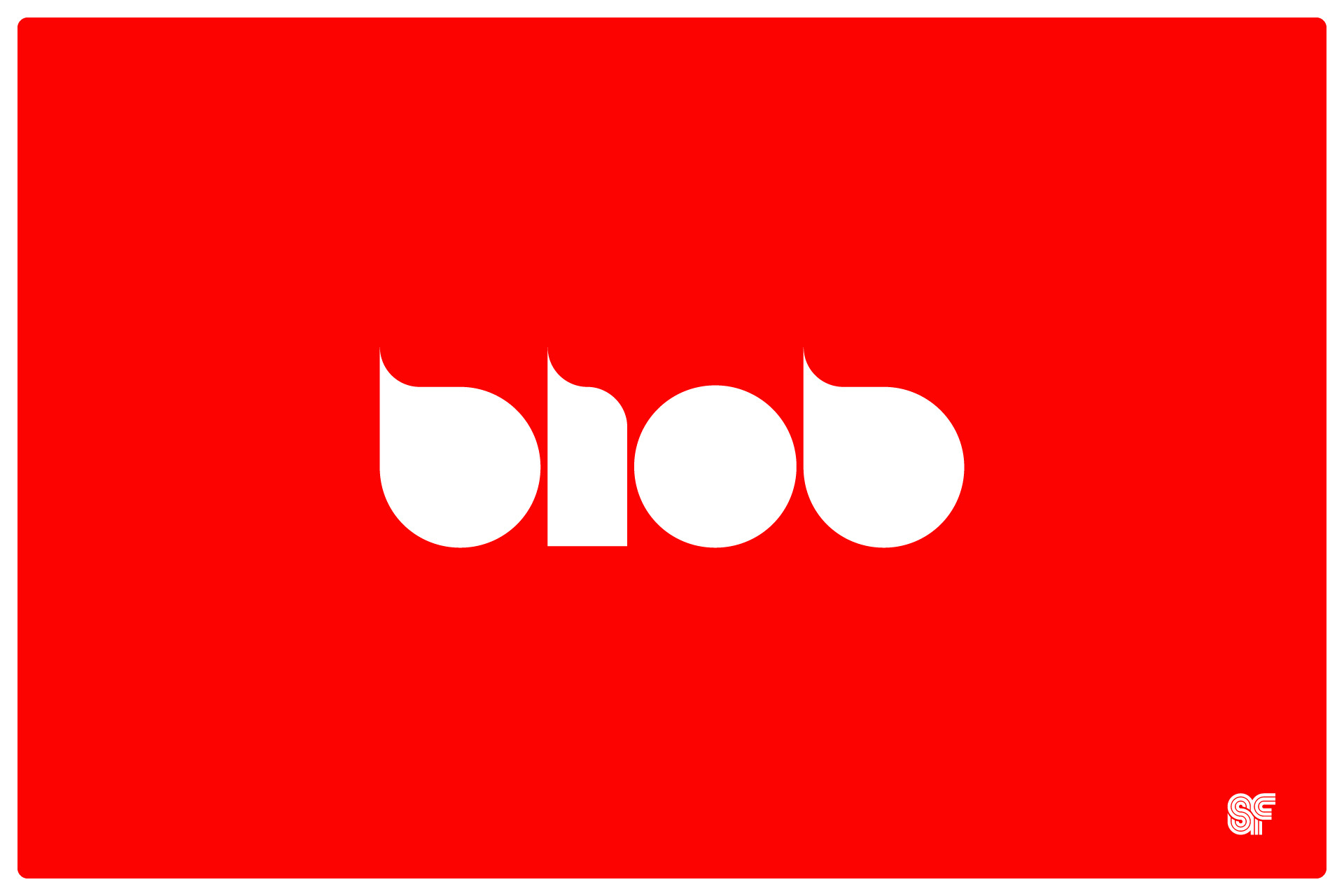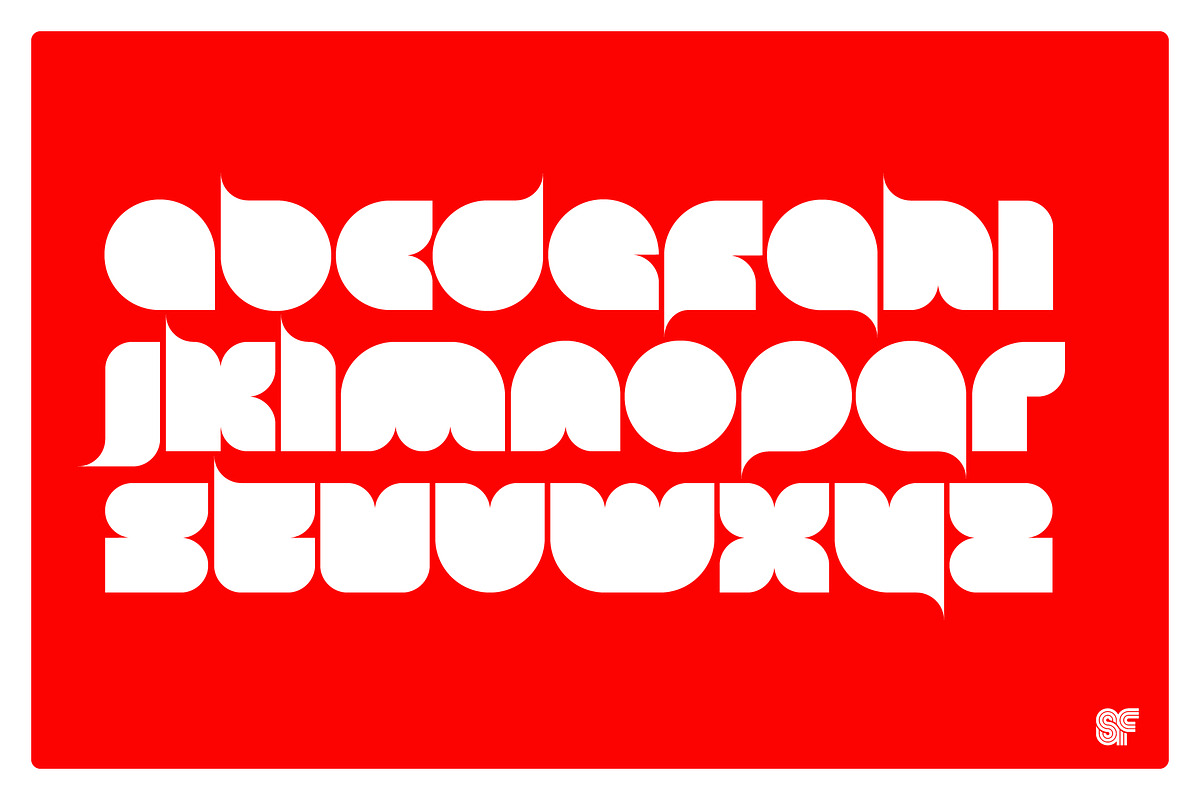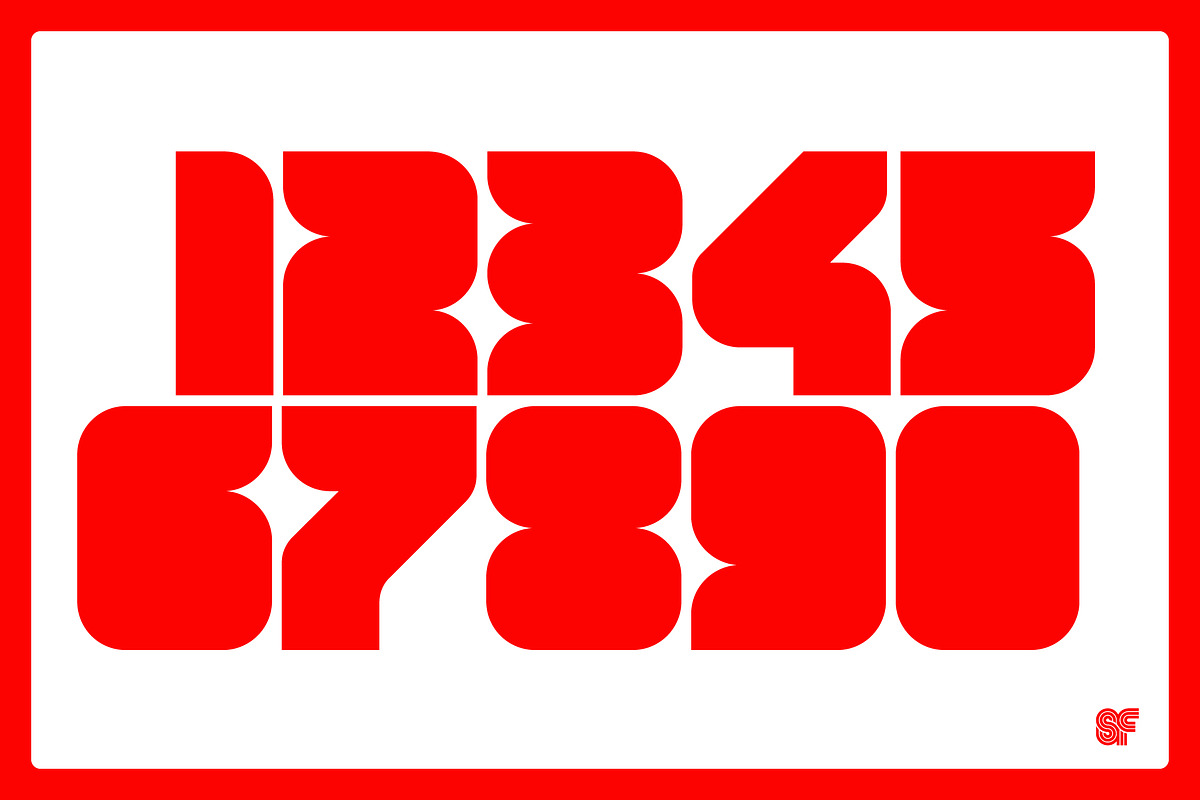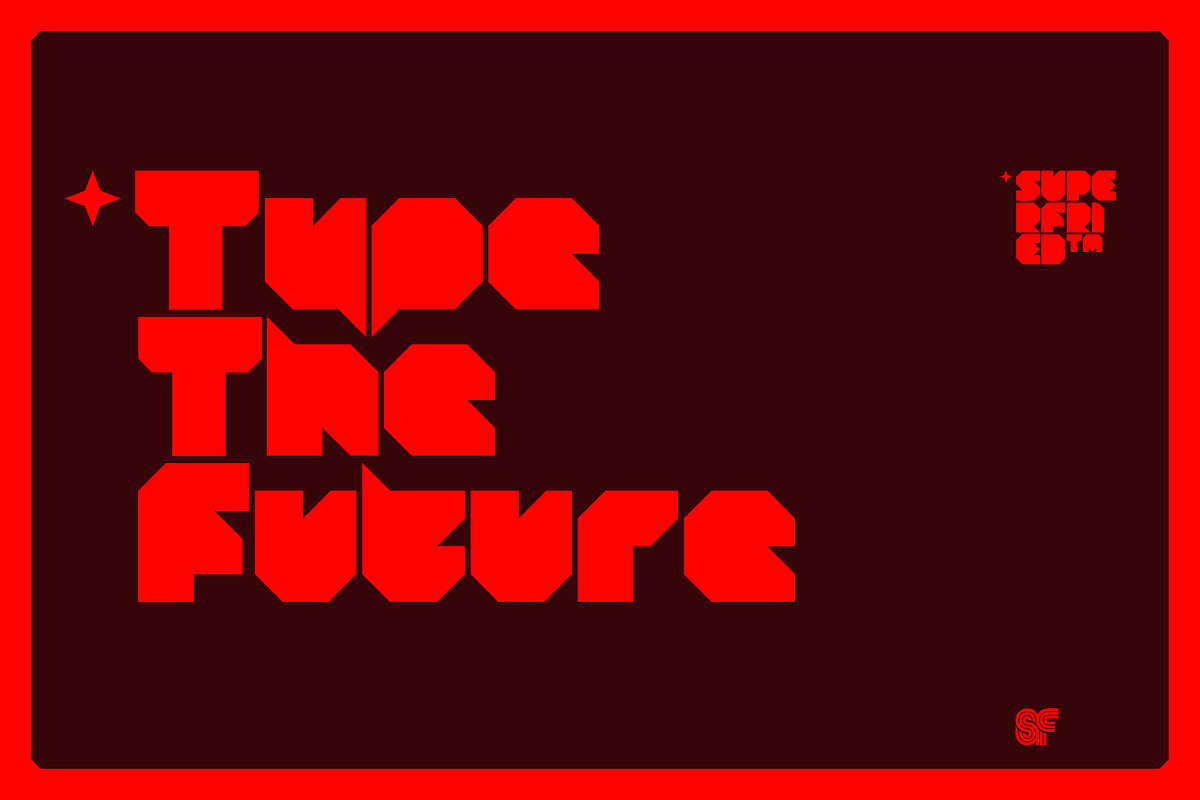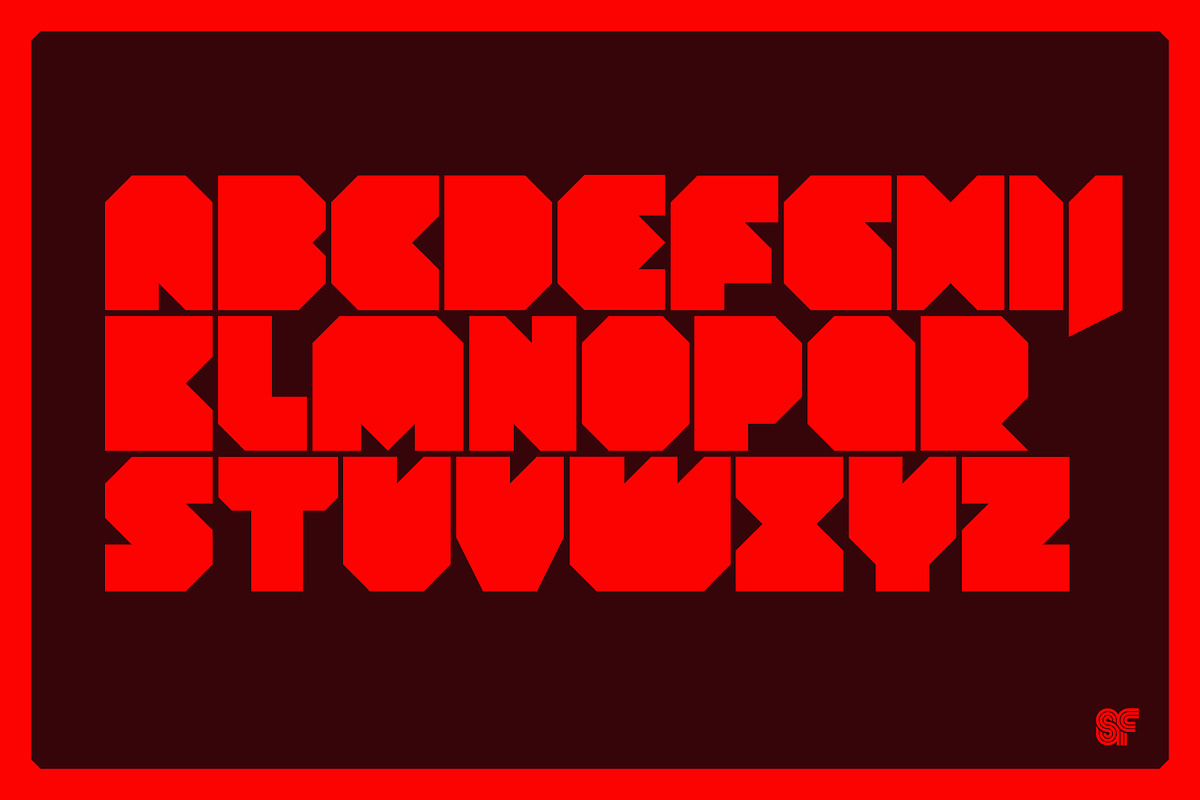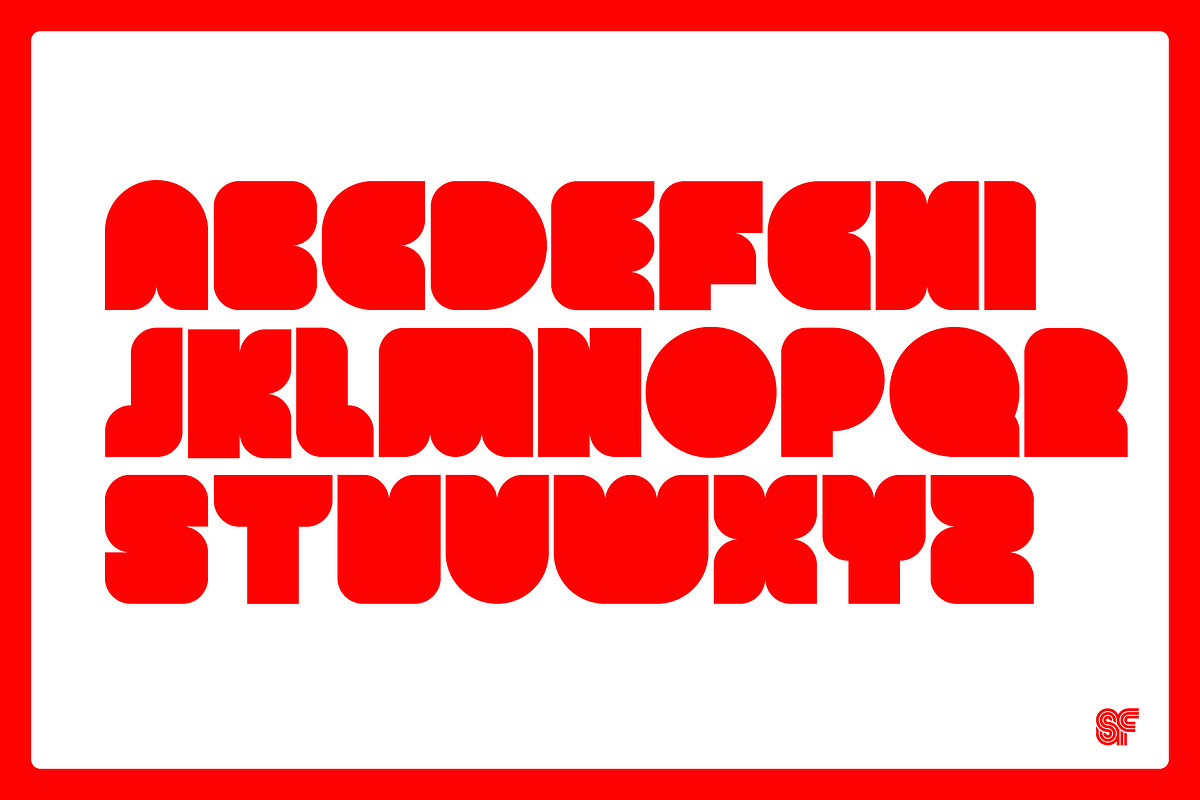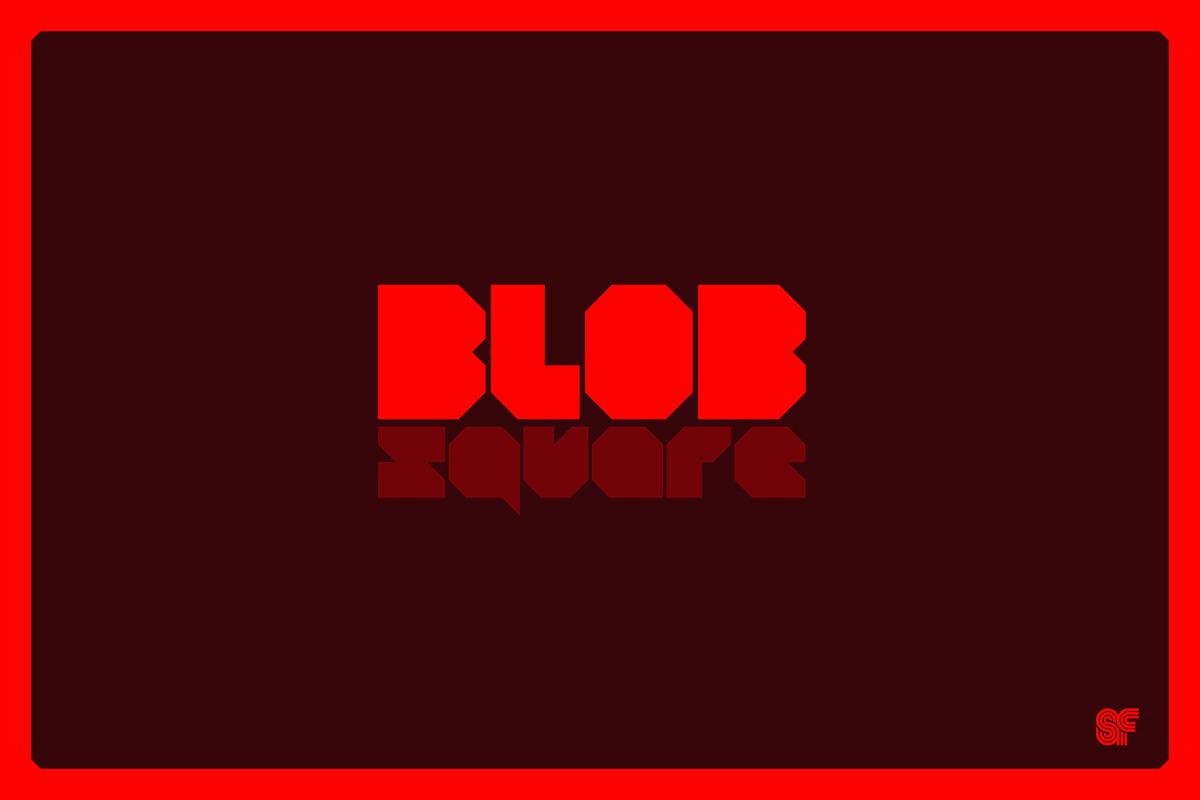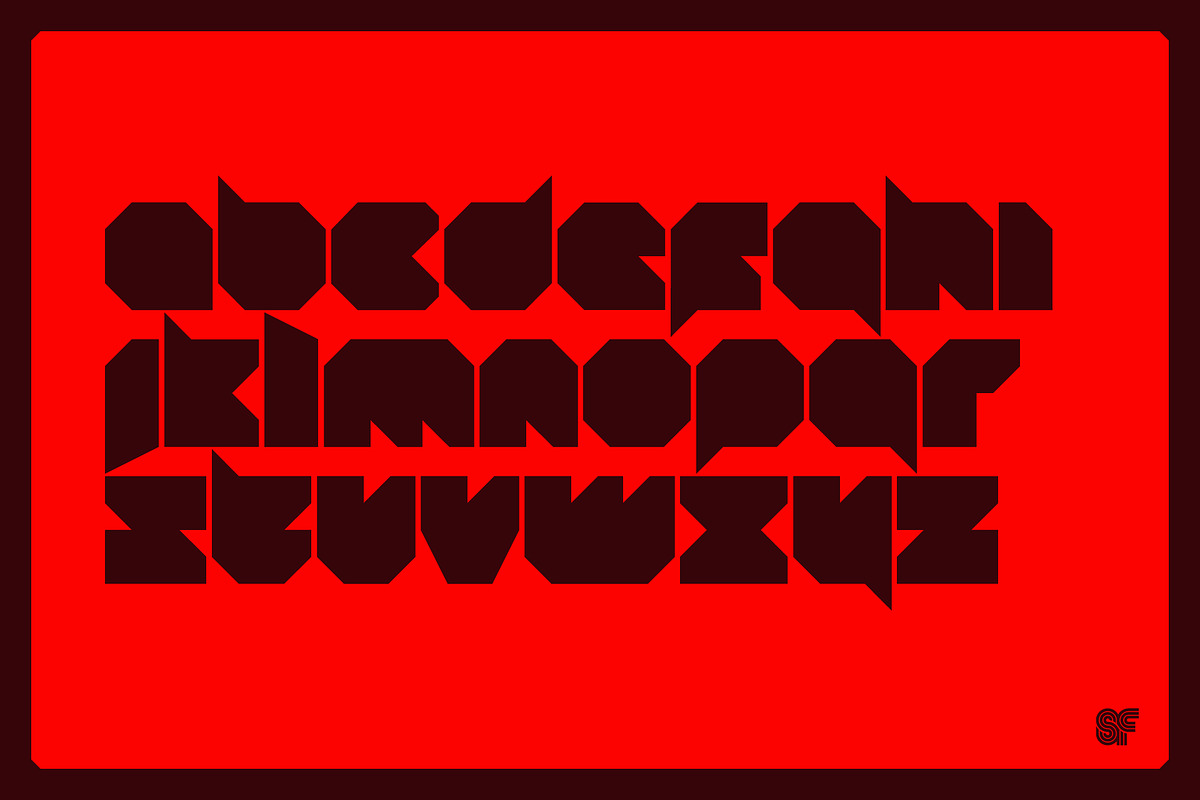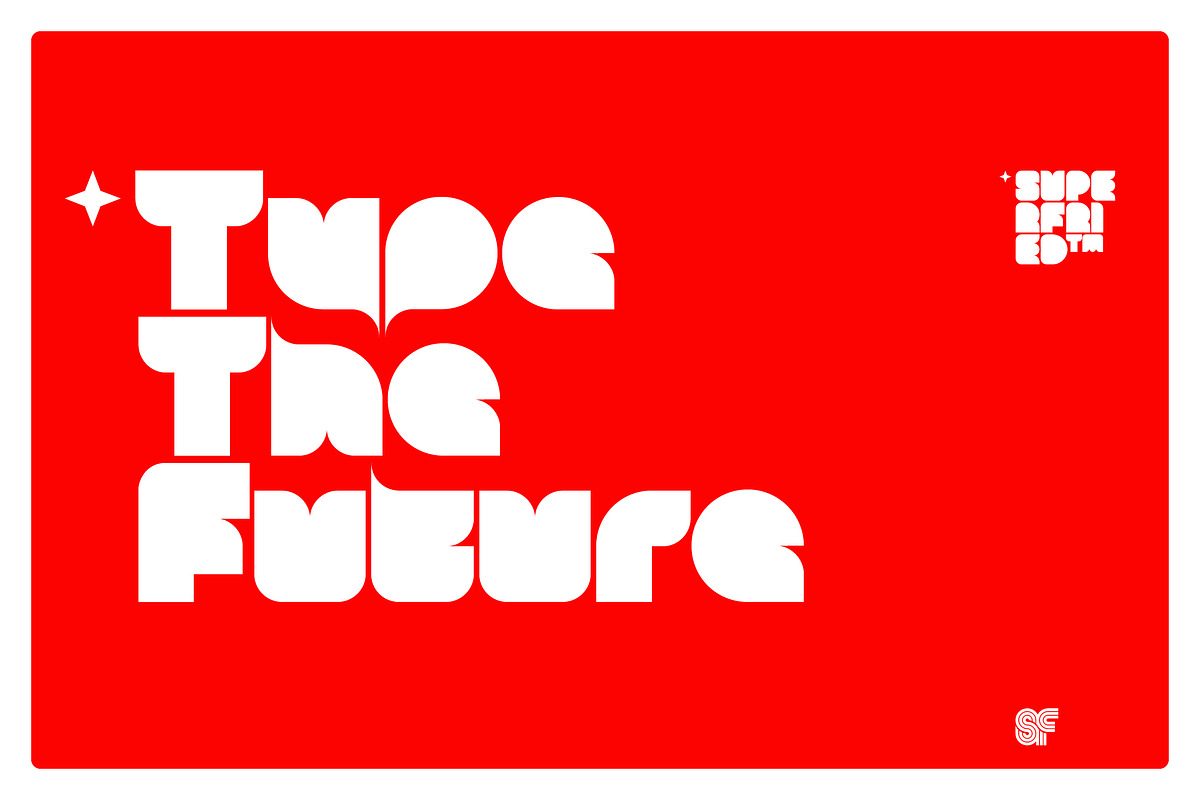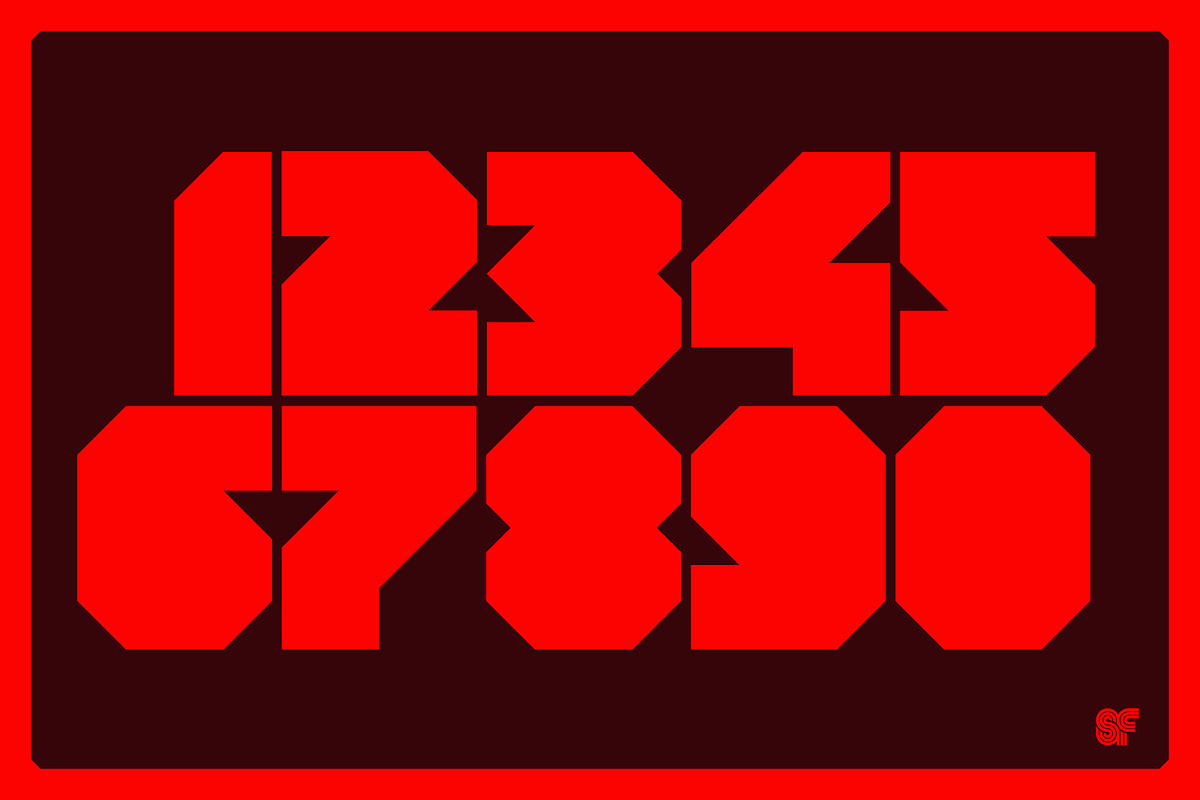
BLOB | Round + Square | 2 Fonts
Originally developed in 2011, Blob by Superfried has been updated with design tweaks to specific characters and improved spacing throughout.
Blob is available in two formats: Round and Square. It is an experimental, sans-serif display typeface based on simple geometric forms. Although unorthodox, care has been taken to ensure that it is completely legible.